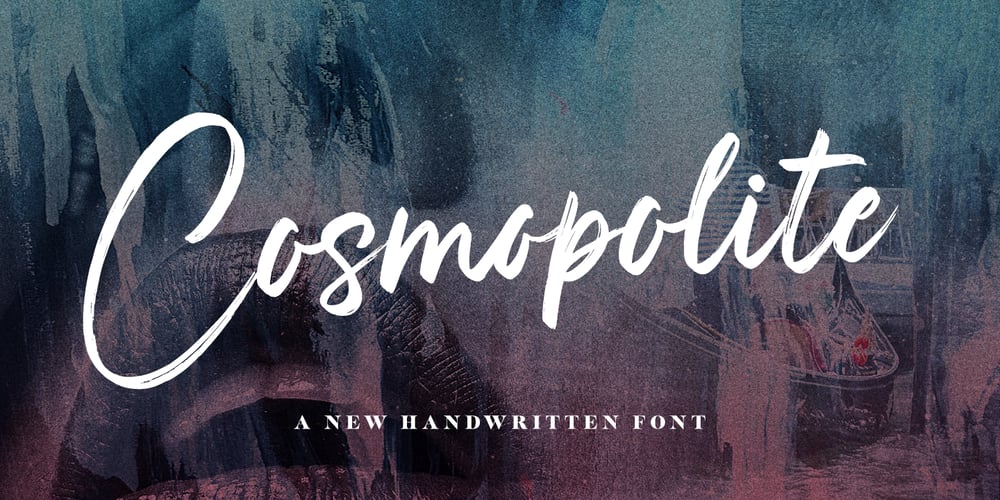
Cosmopolite
Cosmopolite font
Cosmopolite Font Family was designed by Ivan Rosenberg and published by Ivan Rosenberg. Cosmopolite contains 1 styles and family package options. Cosmopolite is hand brushed font with multilingual support. Is ideal for t-shirts, magazines, phone covers, social media, restaurant menus, greeting cards, invitations, weddings, headers and many more.This brush font comes with a complete set of lowercase and uppercase characters, a contextual alternates, numerals and multilingual support.—For access to Stylistic Alternates is required software with glyphs panel like Photoshop, illustrator, Inkscape etc. Ligatures shows up automatically.Cosmopolite Font include multilingual support for western and central Europe.If you have any questions or suggestions don’t hesitate to contact me.